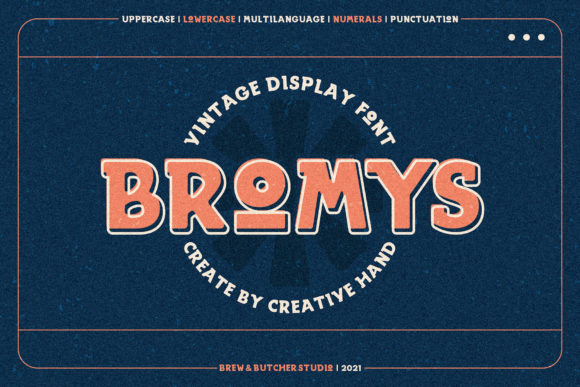
Bromys Font
Introducing Bromys, the bold and captivating display font that will transform your designs into masterpieces. Crafted specifically for the digital canvas of Canva, Bromys empowers you to create stunning posters that will leave an unforgettable impact.
Indulge in the allure of its thick, vintage-inspired letterforms that exude a timeless elegance. Bromys is a font designed to elevate your brand, adding a touch of sophistication to every label, logo, and cover.
Imagine the possibilities as you effortlessly create captivating posters that speak to your audience. The bold lines of Bromys demand attention, while the subtle vintage undertones add a touch of nostalgia. Whether you're crafting posters for promotions, events, or personal projects, Bromys is the perfect choice to convey your message with style and impact.
Bromys is more than just a font; it's a creative companion that will inspire you to push the boundaries of your designs. Let its thick, bold strokes infuse your work with a touch of��魅力, making your posters stand out from the crowd.